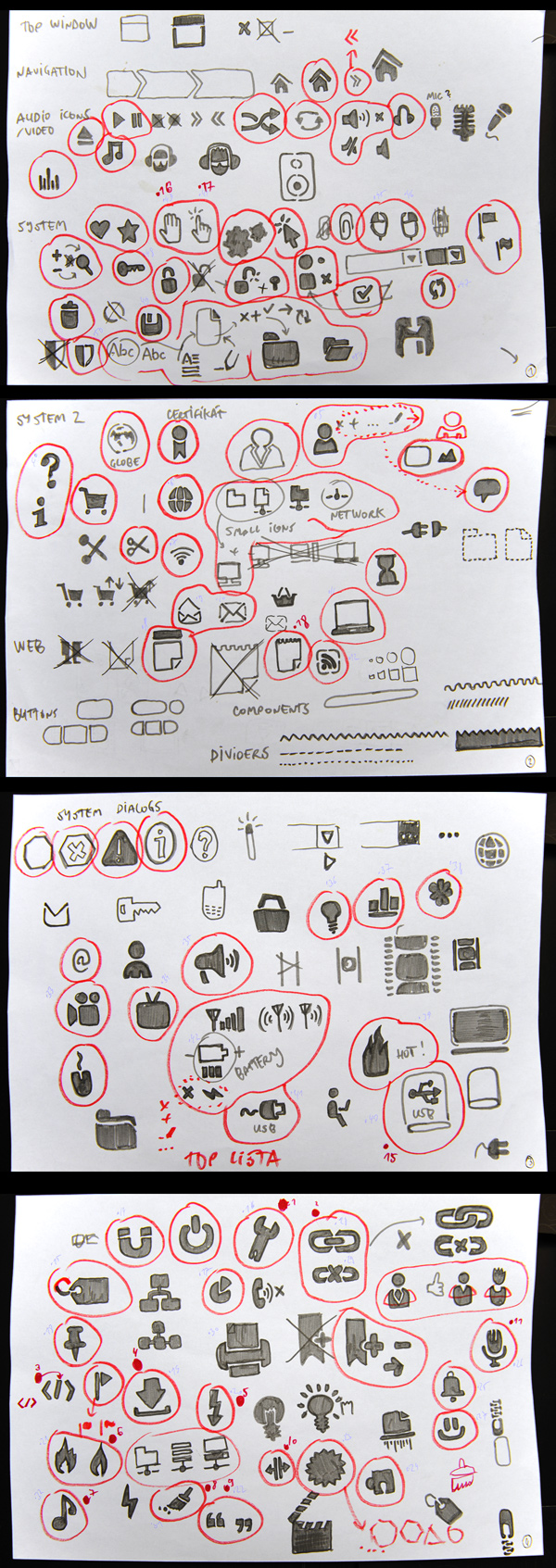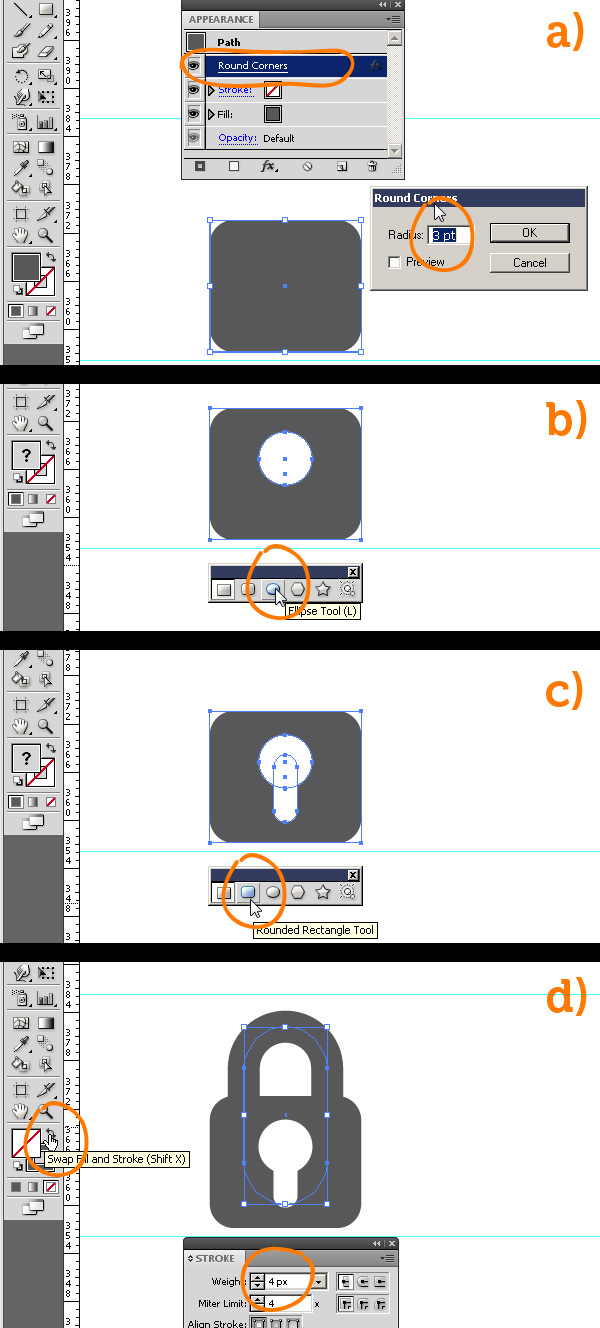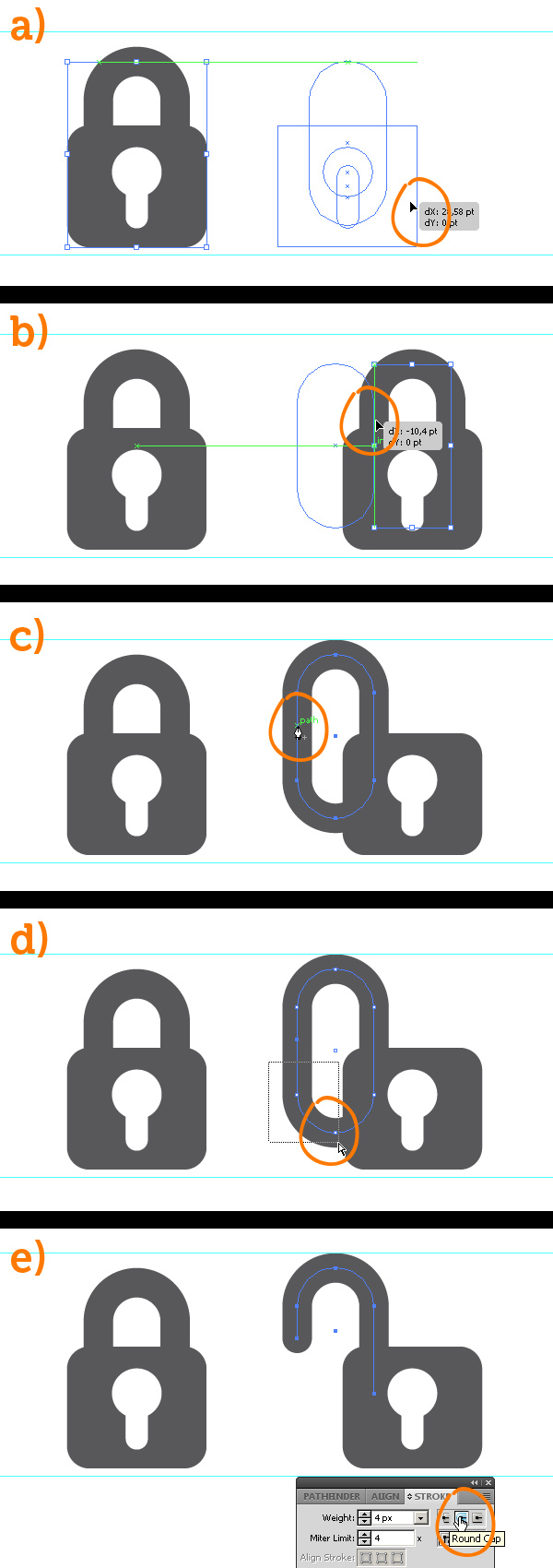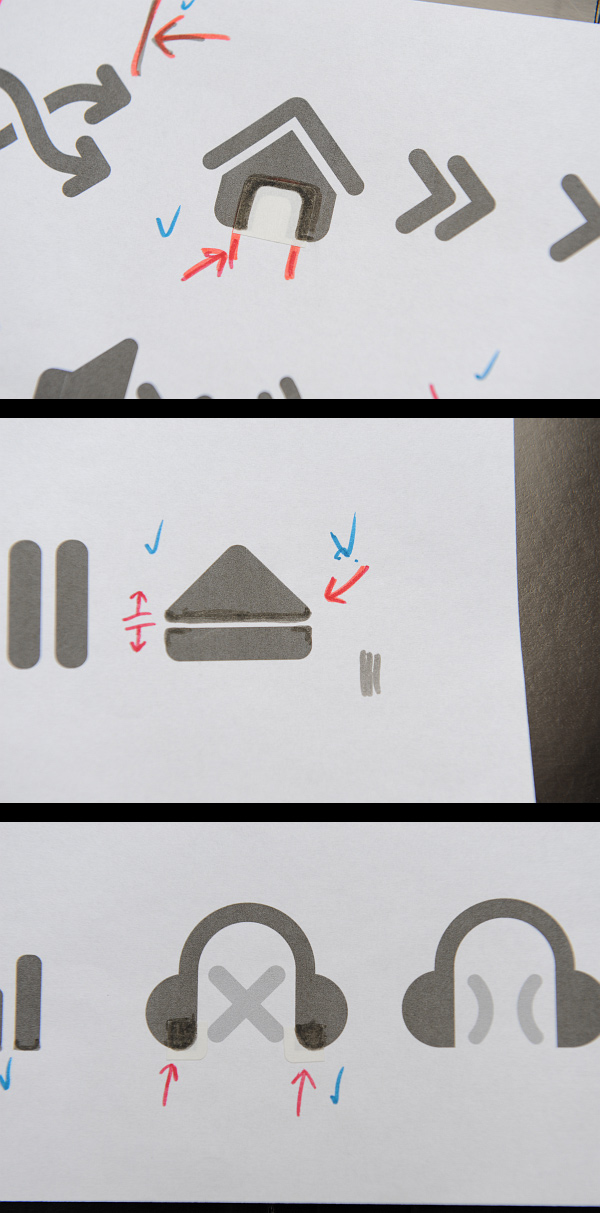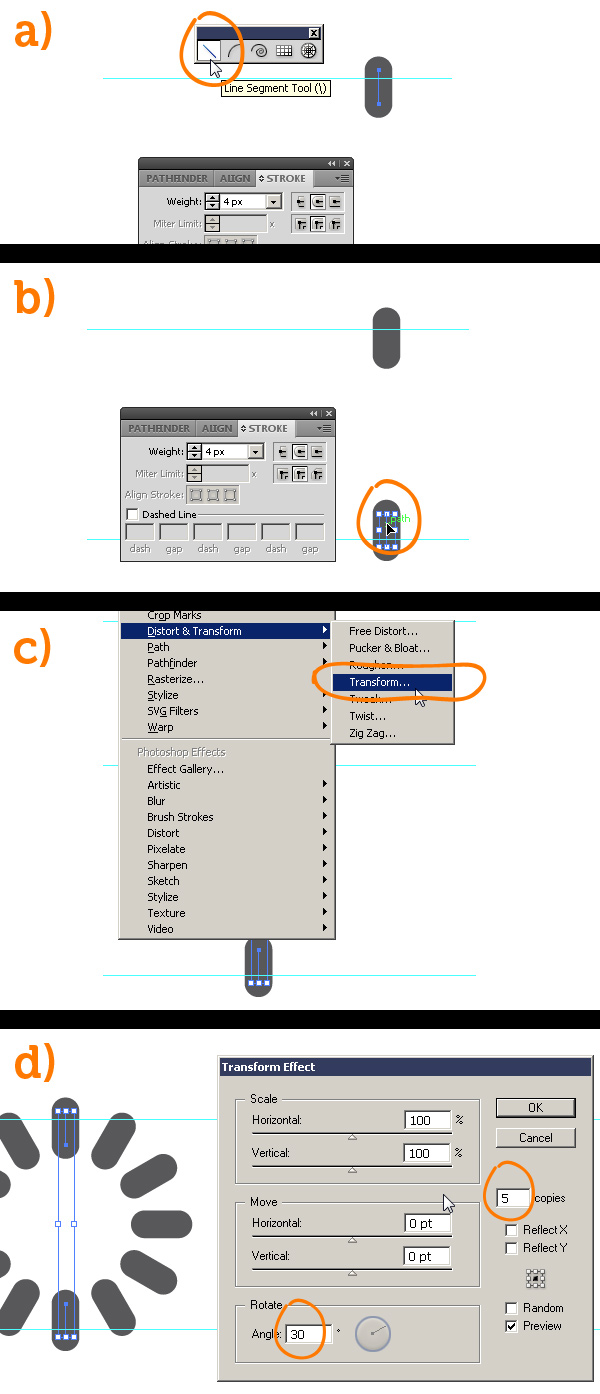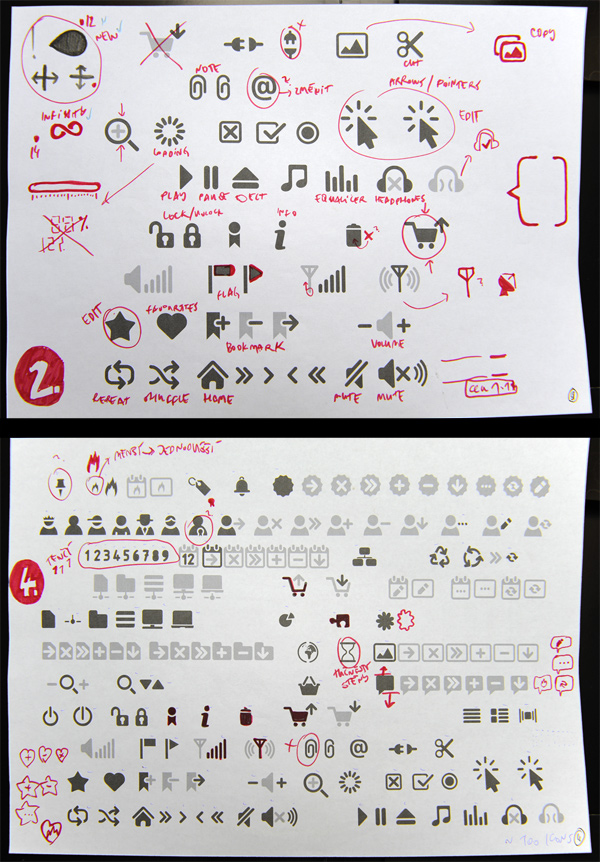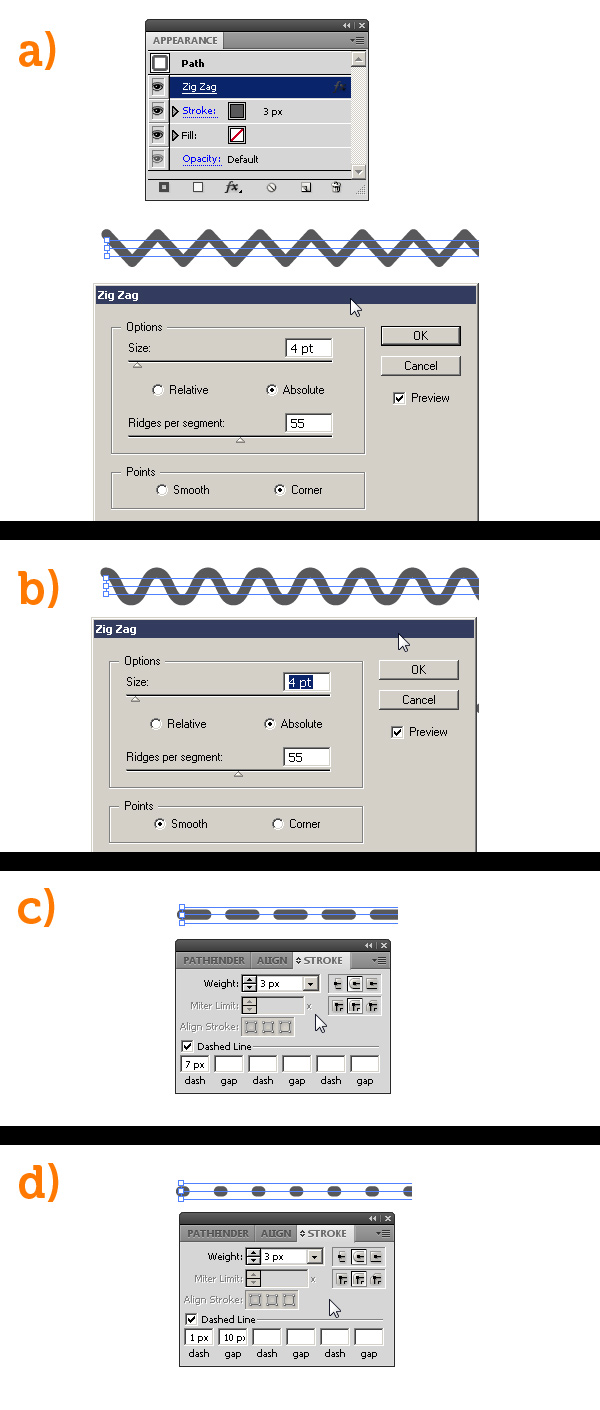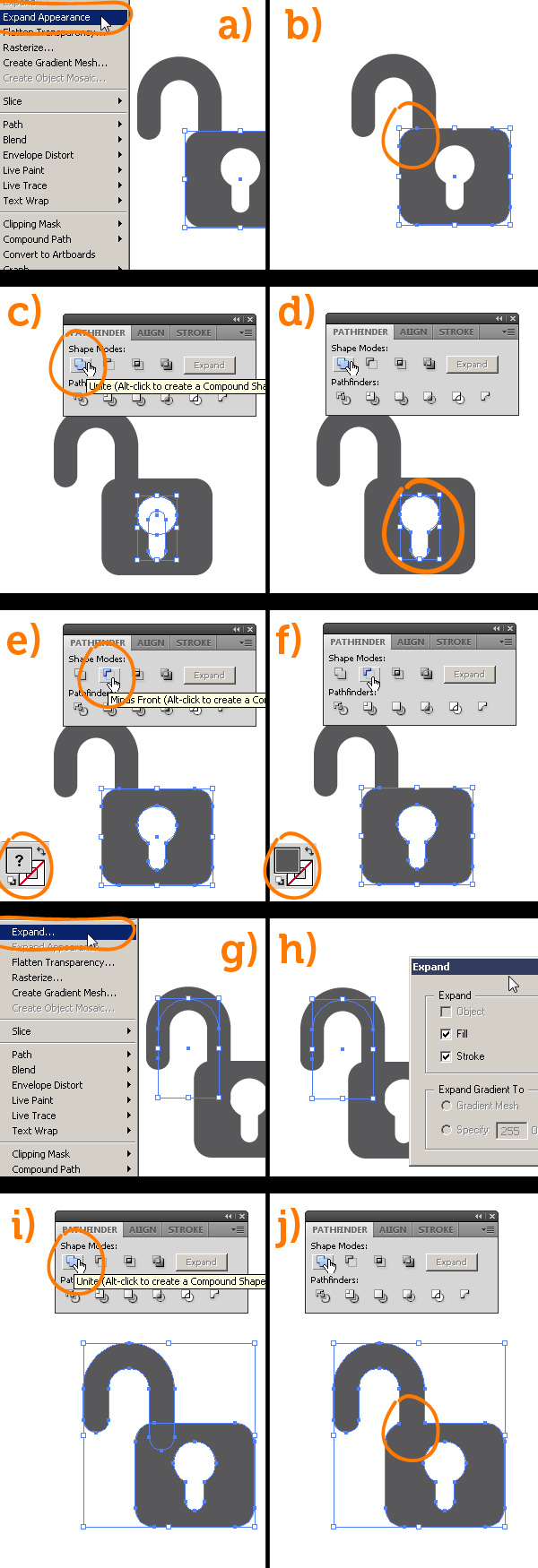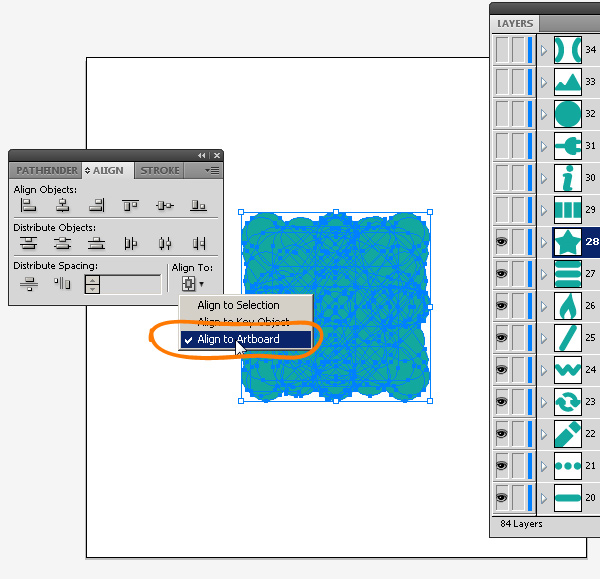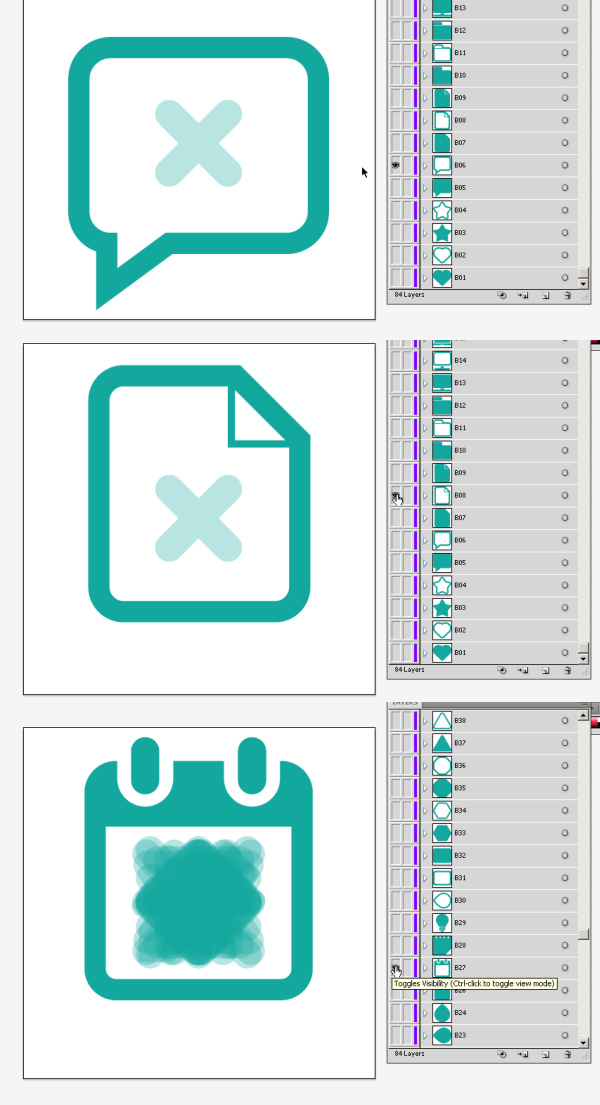
The Making of GUI Design Icons Font
Icons are inseparable part of a GUI (graphical user interfaces) design. I was downloading, buying and creating icons for ages, then one day I decided to make my own usable icon set. Something to help other GUI designers make work faster and better. This article explains in detail the process of creating and phases I was going through with this project, and may act as guidance when you decide to make something similar. I went down more than one creative path before finalizing this “GUI Design Icons” font.
The Idea
I was drawing sketches of graphic user interfaces literally for ages, and this idea was the whole time in my head. I thought about making a ruler – stencil – with every frequently needed icon used in GUI design?
Let’s face it – I have missed the chance of being the first. Somebody else had already made this. I found a nice, stainless ruler (stencil) from DesignCommision (see photo), which you can buy at uistencils.com.
I immediately ordered it. After seeing it live, I was even more determined to make one on my own. My idea was to execute this a little bit differently – with plastic. There is nothing wrong with stainless steel. It is shiny, modern, it’s nice. But you can not see though it, the edges are sharp, and it destroys the pencils and scrape your fingers (it’s not that bad, but working with it is not very comfortable).
At the beginning was a paper, loads of paper, pencils, felt tips and a lot of time. In the meantime (in the non-drawing time) I was exploring various GUIs, searching what can come in handy, and ended up with many papers full of drawings. These you can also see here (click for bigger photo). Once I decided that I had enough of sketching, I marked all the icons that I might try to recreate on computer. This is where I jumped into the second phase.
Drawing Icons in Adobe Illustrator
The time needed for sketches was nothing compared to time spent in Adobe Illustrator. As you can see, the icons are quite simple, but you have to care about maximum accuracy, as few point as possible (no needless points) and – the most important thing – consistency in style.
If you take a closer look at the ruler from DesignCommision, this is the biggest imperfection – the icons don’t have a unified style. Most of the icons are simple, but user icon have a very detailed outline. Most of the icons have similar size, but the play button is too big (and wide). Most of the icons are made from straight lines, but the "i" and book icons are unreasonably rounded… and so on.
Let me show you the process of creating two icons: the lock icon and loading animation icon. In the beginning, I created two guides (quite randomly) in the document – and I’ve tried to keep the icons sizes along these guides. Not that every icon is from the first guide to the second, but to roughly keep the scale the same.
Locked Padlock
The fastest to create icons is to imagine the icon as a compound of basic shapes. It’s always faster to delete half of a circle than to draw the half circle by hand (with the Pen Tool). Keeping the work with the Pen Tool to a minimum will help you create accurate shapes in a short amount of time. Instead of using the Pen Tool, try to think used basic shapes and the Pathfinder tools to break them apart as needed.
- Lets start with making a Rectangle with a Round Corners effect applied (Menu > Effect > Stylize) applied to it. We could also draw the rounded rectangle with the Rounded Rectangle Tool, but this way the corners will keep the Radius even after resizing.
- Now draw the base of the keyhole with the Ellipse Tool (hold Shift when drawing the circle). For perfect alignment use the button in the top bar, or use buttons in the Align palette.
- The bottom part of the keyhole is drawn with the Rounded Rectangle Tool (press the up and down arrow keys to adjust the radius).
- Also the top part of the padlock is drawn with this tool, here we just swap the fill and stroke (Shift + X). This means no fill and a bold stroke. Since the keyhole is not transparent but white, all you need to do to hide the bottom part of this last rounded rectangle is to send this object to back (right-click on the object, choose Arrange > Send to Back. We don’t need to worry about this for now though.
Unlocked padlock
The unlocked padlock icon is even simpler (and faster) to create.
- First select and drag the whole icon to the side. While dragging, hold the Alt key to duplicate the object (or you can use Command + C and Command + V).
- Move the top part leftwards and a little bit upwards (just like when you’re opening the real padlock).